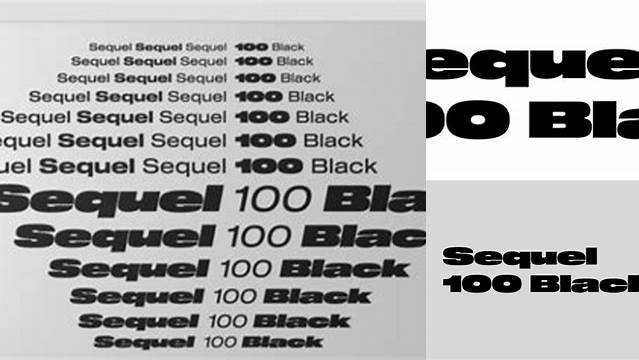
1. What is the Sequel 100 Font Family?
So, what exactly is the Sequel 100 font family? It's a contemporary sans-serif typeface known for its clean lines and geometric shapes. Designed to be highly legible, it works wonders for both headlines and body text. Think of it as that reliable friend who always looks good no matter the occasion. The family typically includes various weights and styles, from light and regular to bold and italic, giving you plenty of options to play with. This makes Sequel 100 font family a go-to choice for designers working on everything from websites and apps to print materials like brochures and posters. Its modern aesthetic ensures your text looks crisp and professional, making it a fantastic addition to your font library.
The Design Philosophy Behind Sequel 100
The design philosophy behind the Sequel 100 font family centers around creating a typeface that is both functional and aesthetically pleasing. The goal was to develop a font that could perform well in various contexts, whether used for large headlines or smaller body text. This is achieved through careful attention to details like the spacing between letters, the consistency of stroke widths, and the overall geometric structure. The clean lines and minimalist approach reflect a modern sensibility, making Sequel 100 font family a timeless choice that avoids fleeting trends. Designers aimed for a balance between elegance and practicality, resulting in a typeface that feels both approachable and sophisticated. This thoughtful design makes it a favorite among professionals looking for a reliable and versatile font.
Key Features of Sequel 100
Let’s break down the key features that make the Sequel 100 font family stand out. First off, its clean, geometric shapes give it a modern and minimalist vibe, perfect for contemporary designs. The font offers excellent readability, thanks to its clear letterforms and balanced spacing, making it ideal for both body text and headlines. You'll also find a range of weights and styles within the family, providing versatility for various design needs. Whether you need a light touch or a bold statement, Sequel 100 has you covered. Plus, its broad character set usually includes support for multiple languages, ensuring it can be used in a global context. All these features combine to make Sequel 100 font family a top choice for designers aiming for a professional and polished look.
2. Why Choose Sequel 100 for Your Projects?
Why should you choose the Sequel 100 font family for your projects? Well, its versatility is a major draw. It works great for a wide range of applications, from website headers to printed documents. The clean and modern design ensures your text is legible and visually appealing, no matter the medium. Plus, having multiple weights and styles in the family means you can create a consistent and cohesive look across all your materials. Using Sequel 100 font family can give your projects a professional edge, making them stand out in a crowded market. If you're aiming for a font that's both stylish and functional, Sequel 100 is definitely worth considering.
Versatility in Design Applications
One of the biggest reasons to opt for the Sequel 100 font family is its incredible versatility in design applications. You can use it for almost anything – from branding and logo design to website typography and print layouts. Its clean and modern aesthetic makes it suitable for both digital and print media, ensuring a consistent look across all your platforms. Think about how Sequel 100 font family can elevate your website headers, making them crisp and engaging, or how it can add a touch of professionalism to your business cards and brochures. This adaptability means you get more bang for your buck, as one font family can cover a multitude of design needs. For designers who value flexibility and efficiency, Sequel 100 is a fantastic choice.
Enhancing Readability and Visual Appeal
The Sequel 100 font family truly shines when it comes to enhancing readability and visual appeal. The font's clear letterforms and balanced spacing make it incredibly easy to read, whether it's used for long paragraphs or short headings. This is crucial for keeping your audience engaged and ensuring your message gets across effectively. Beyond readability, the font's modern and clean design adds a visual sophistication to any project. It helps create a polished and professional look, making your content more attractive and inviting. By choosing Sequel 100 font family, you're not just selecting a font; you're investing in a typeface that enhances both the aesthetic and functional aspects of your designs, ultimately making them more impactful.
Consistency Across Different Media
Consistency is key in branding and design, and the Sequel 100 font family makes it easy to maintain a uniform look across different media. Whether you're designing for web, print, or mobile, Sequel 100 ensures your text looks cohesive and professional. This consistency helps reinforce your brand identity, making it more recognizable and memorable. Imagine using the same font across your website, business cards, social media graphics, and marketing materials – it creates a seamless and polished impression. With its versatility and readability, Sequel 100 font family is a reliable choice for achieving this consistency, ensuring your brand message is clear and impactful no matter where it's seen.
10. Conclusion: Is Sequel 100 the Right Font for You?
So, is the Sequel 100 font family the right choice for your projects? Well, it really depends on your specific needs and aesthetic preferences. If you’re looking for a clean, modern sans-serif that’s versatile and legible, Sequel 100 is definitely worth considering. Its range of weights and styles makes it suitable for various design applications, from branding to web typography. However, if you need a free option and can't find Sequel 100 available for free, there are plenty of great alternatives like Montserrat and Lato. Ultimately, the best way to decide is to experiment with different fonts and see what works best for your unique design goals. Happy designing, guys!